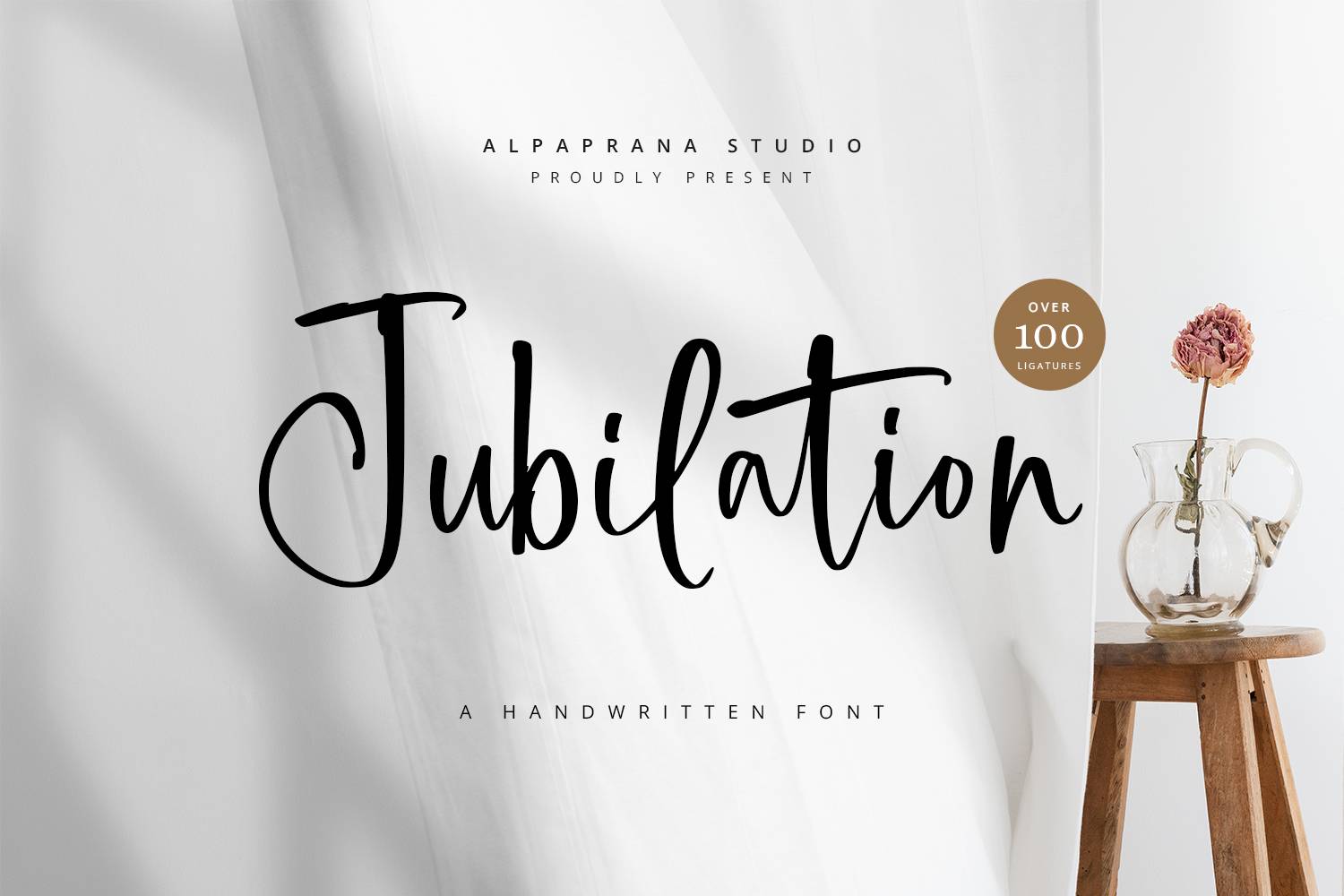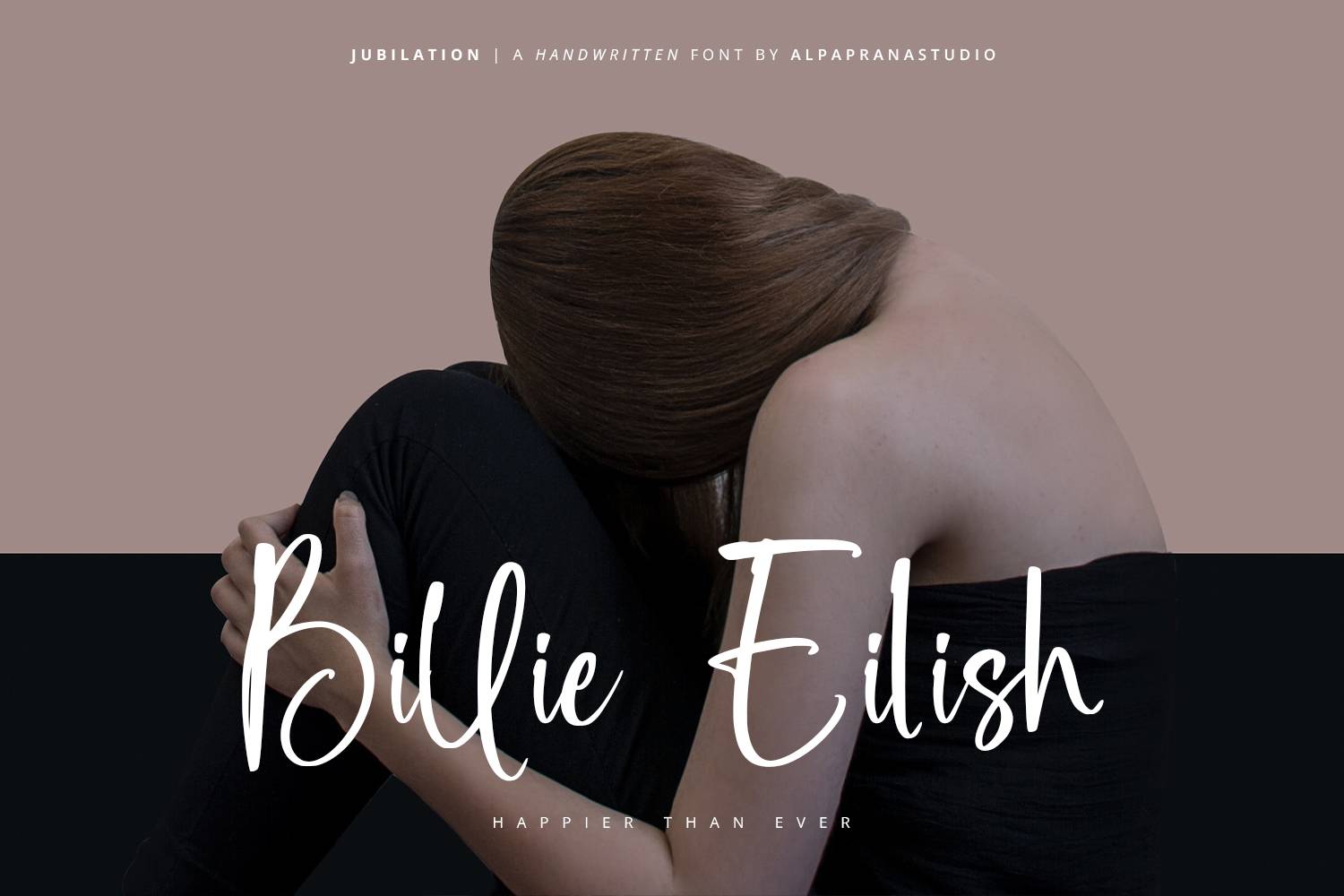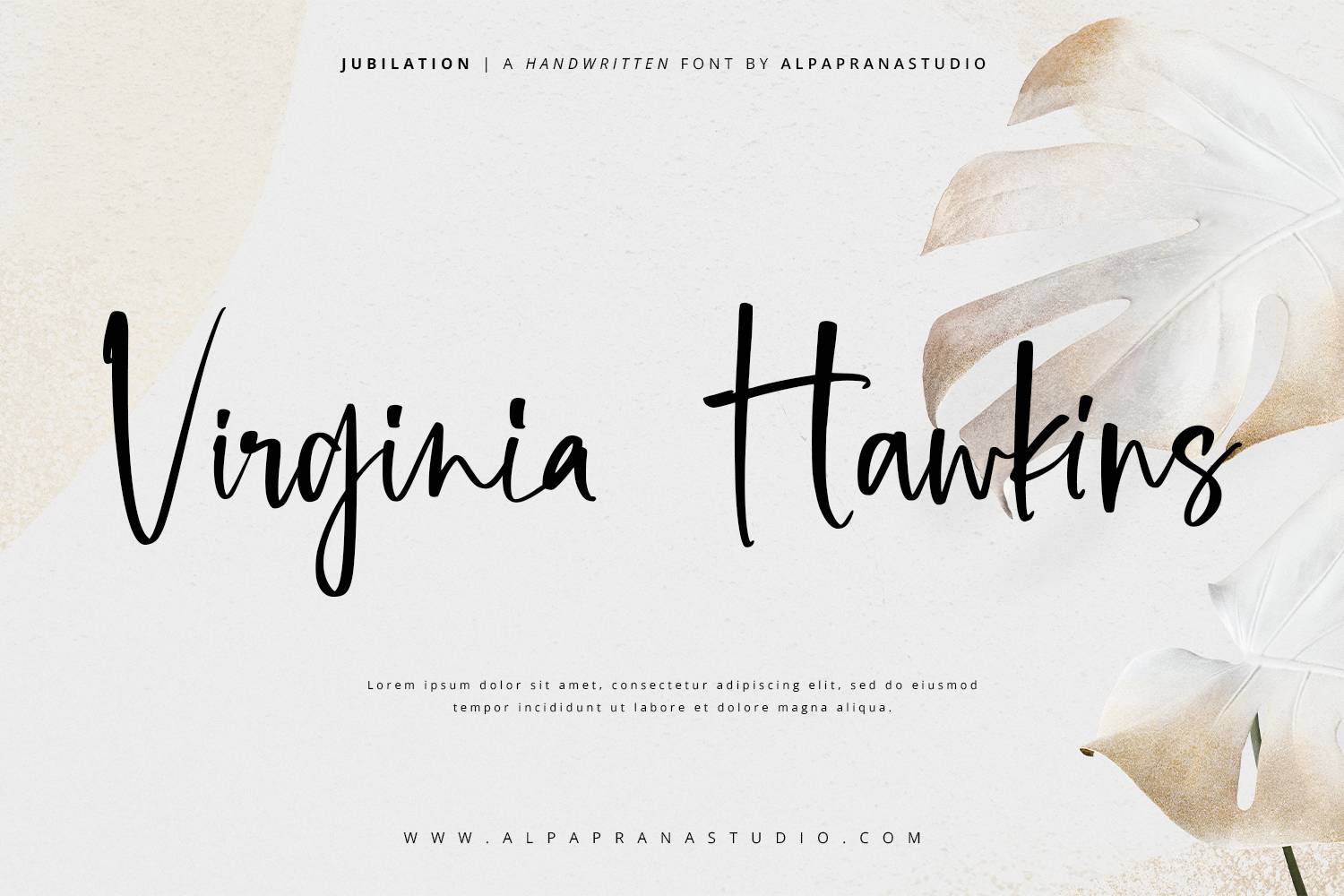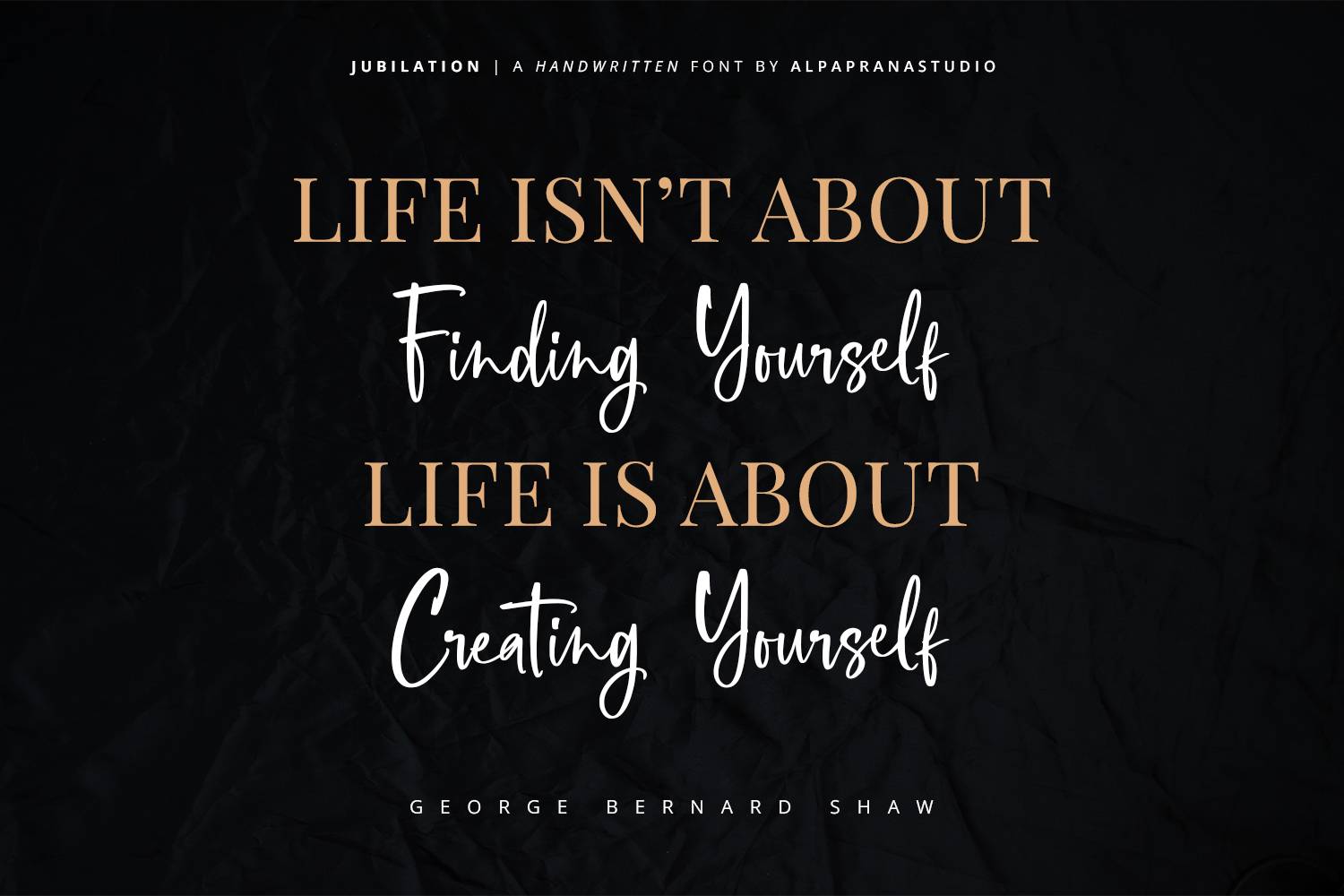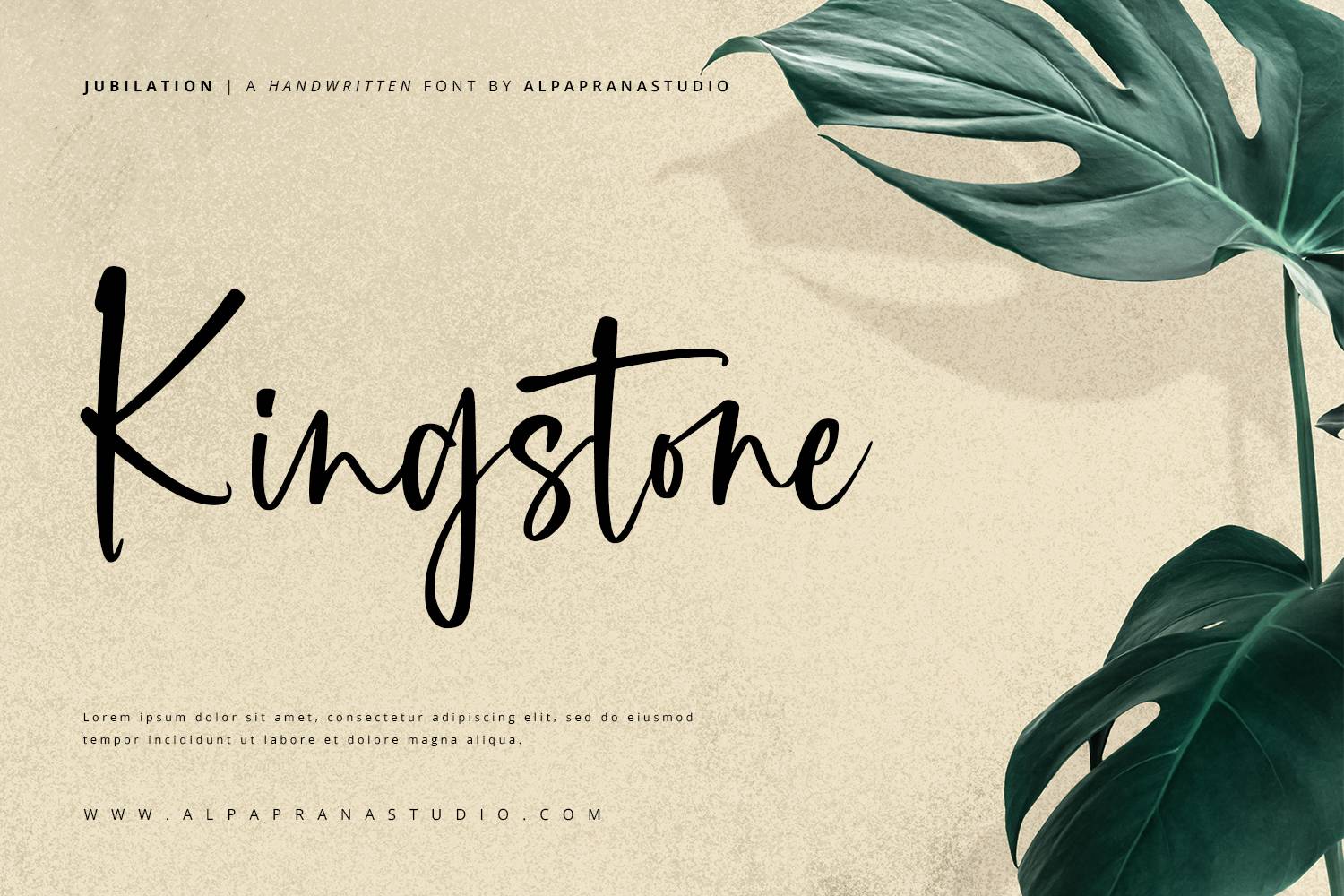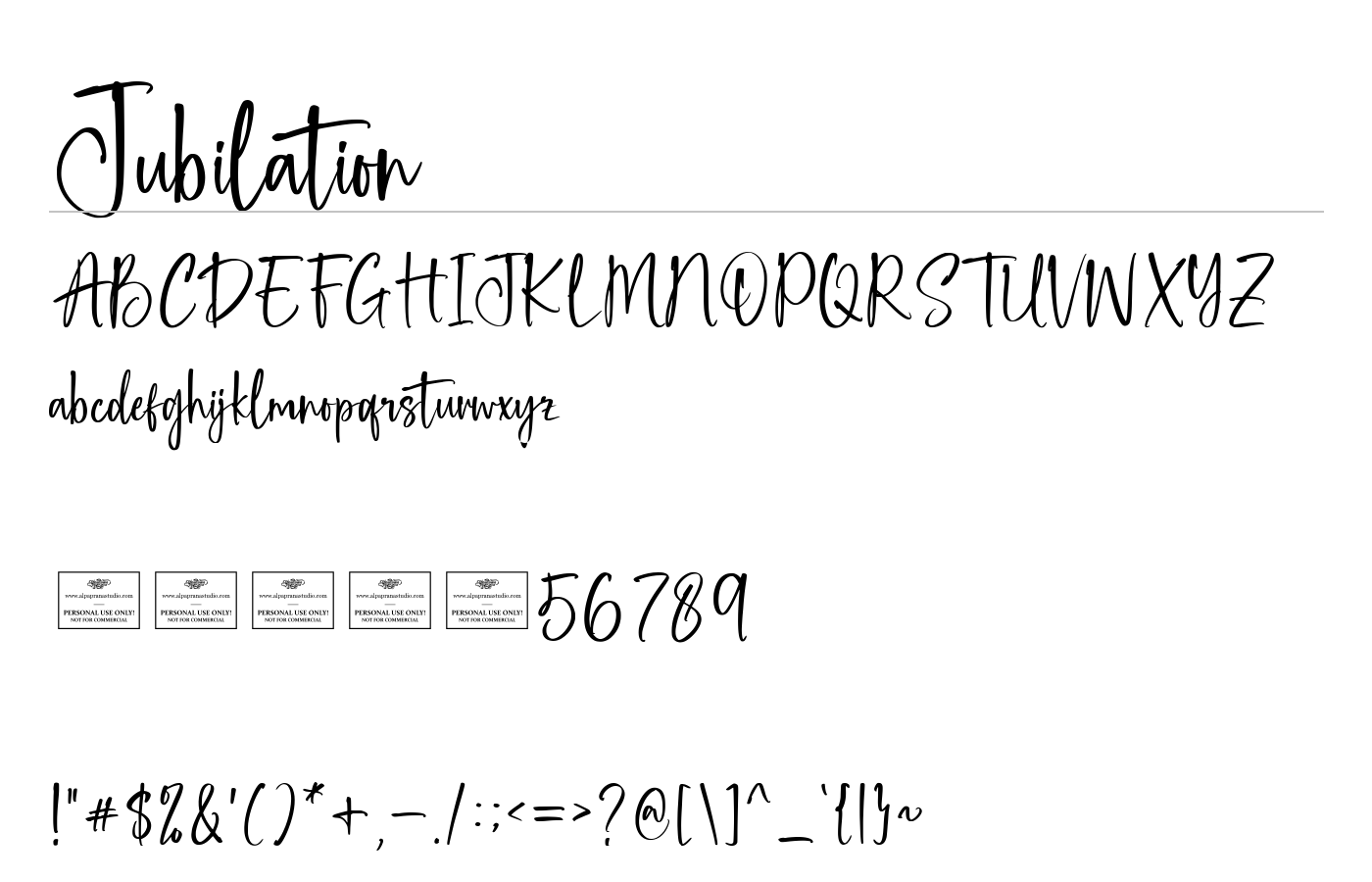
Jubilation is a lively and elegant script font with a handwritten, playful feel. Its tall, narrow letterforms and smooth, flowing strokes create a casual yet graceful style that works beautifully for invitations, branding, and creative projects seeking a personal touch. This font adds a charming, friendly vibe to headlines or logos while remaining readable and stylish.
Jubilation Font
About Jubilation Font